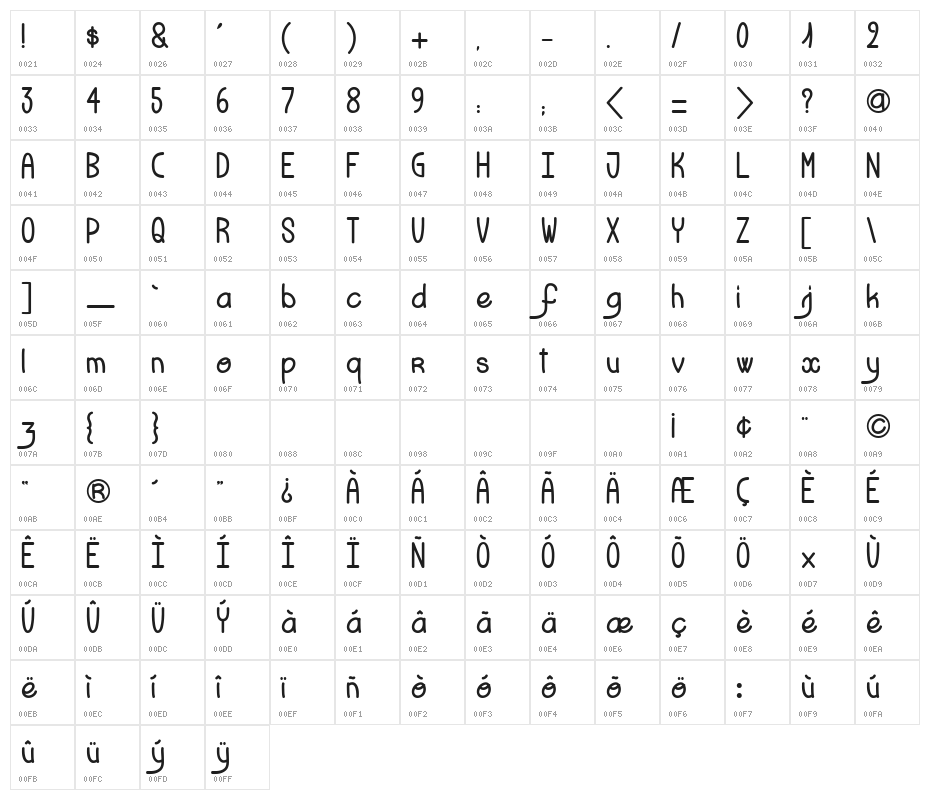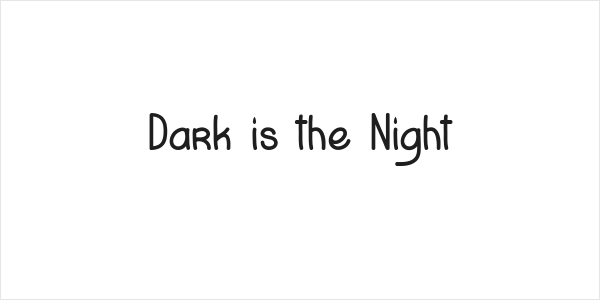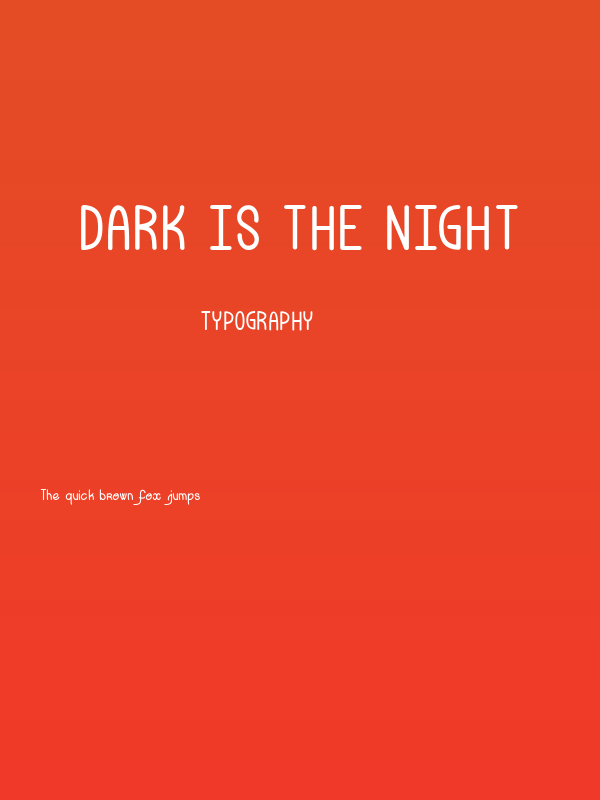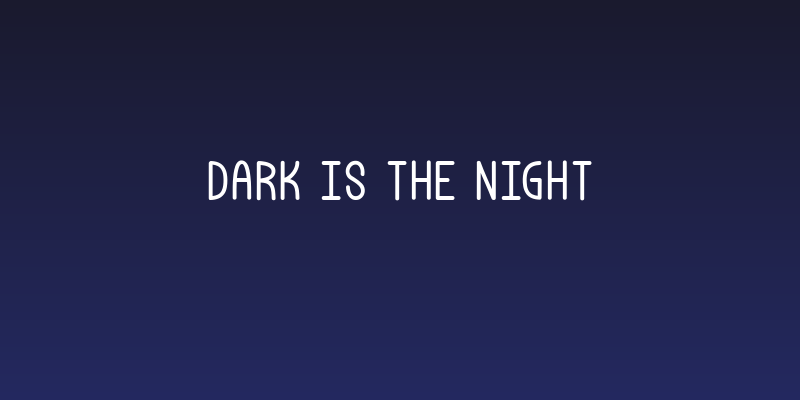
Dark is the Night Font
This playful and rounded font features a handwritten style that exudes a casual and friendly vibe. The characters are evenly spaced with a consistent stroke width, giving it a clean and approachable appearance. The uppercase and lowercase letters maintain a uniform height, enhancing readability. The numerals and special characters are designed to match the overall aesthetic, making them blend seamlessly with the alphabet. This font's smooth curves and lack of sharp edges contribute to its inviting and informal look, making it suitable for a variety of creative projects.
| Proposed Projects | Ideal for children's books, greeting cards, casual invitations, and playful branding. |